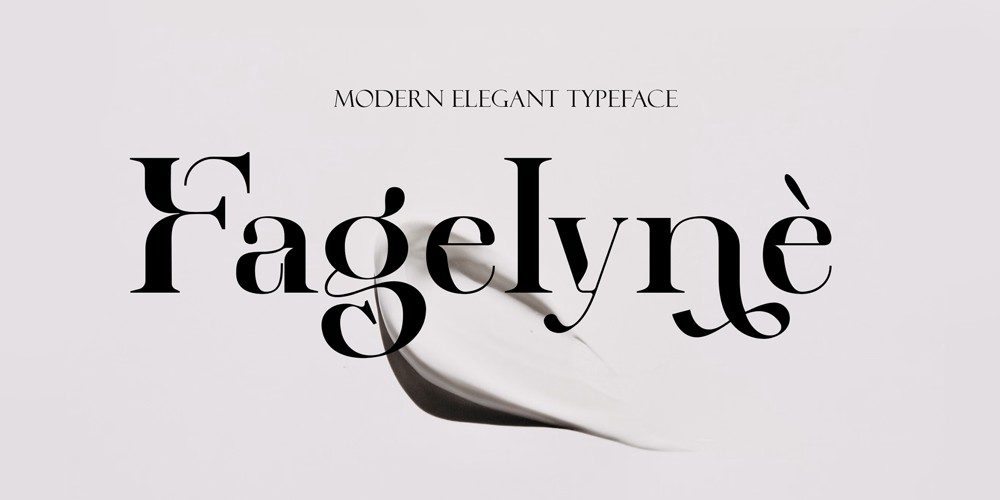
Fagelyne Font Family was designed by Heri Imanudin and published by Krafted. Fagelyne contains 1 styles and family package options. Looking for a modern and extravagant font that is easily memorable? In the sea of similar designs, something unconventional but tasteful will certainly put your brand on the map.Introducing Fagelyne – A Modern Elegant Font.Use this font for promotional material, ads, web pages, apps, clothing, printed material, and anything else you need to make your brand shine. What you’ll get: Multilingual & Ligature Support Full sets of Punctuation and Numerals Compatible with: Adobe Suite Microsoft Office KeyNote Pages Software Requirements: The fonts that you’ll receive in the pack are widely supported by most software. In order to get the full functionality of the selection of standard ligatures (custom created letters) in the script font, any software that can read OpenType fonts will work. We hope you enjoy this font and that it makes your branding sparkle! Feel free to reach out to us if you’d like more information or if you have any concerns.